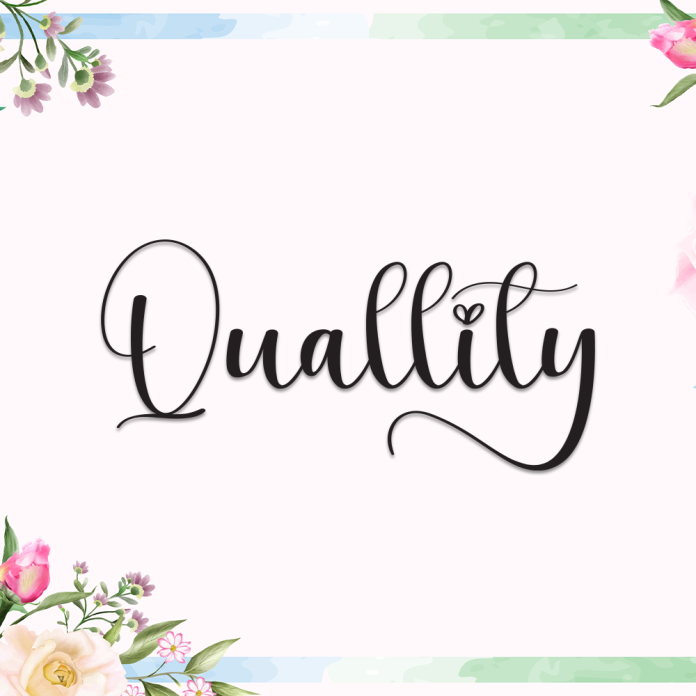
Quallity is a refined handwriting font with a touch of elegance and charm. Its smooth, flowing strokes create a natural handwritten look, perfect for designs that need a personal yet polished feel.
Ideal for wedding invitations, branding, quotes, logos, and social media, Quallity brings sophistication and warmth to your creative projects.
Elegant and clean handwritten style
Stylish curves with a modern calligraphic feel
Great for branding, invitations, packaging, and quotes
Includes uppercase & lowercase, numbers & punctuation
Add a touch of class and personality to your work with Quallity — the perfect blend of handwritten grace and modern design.